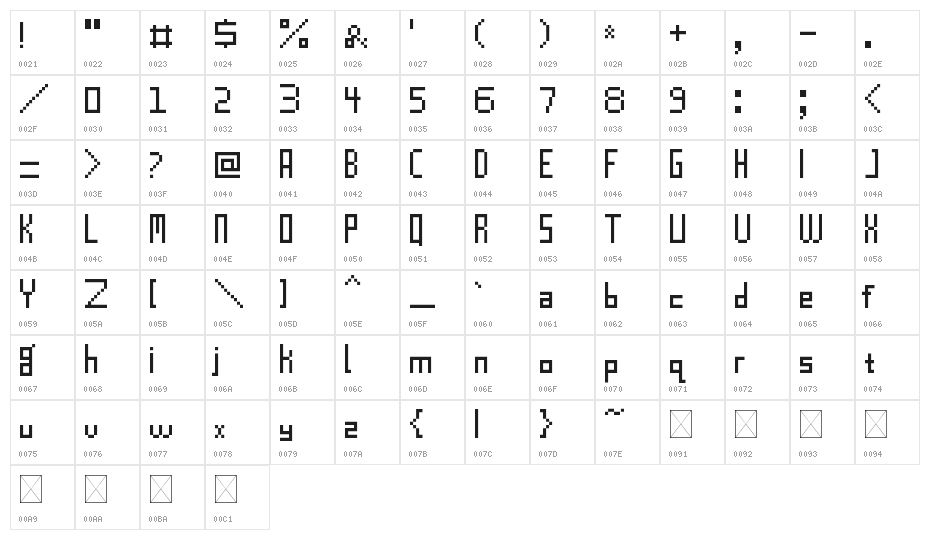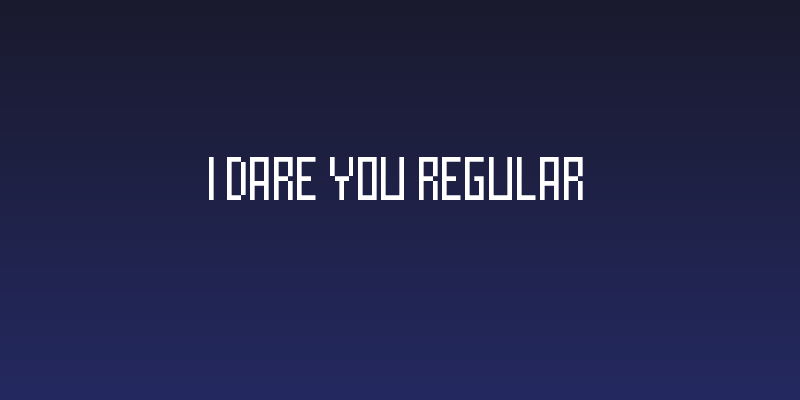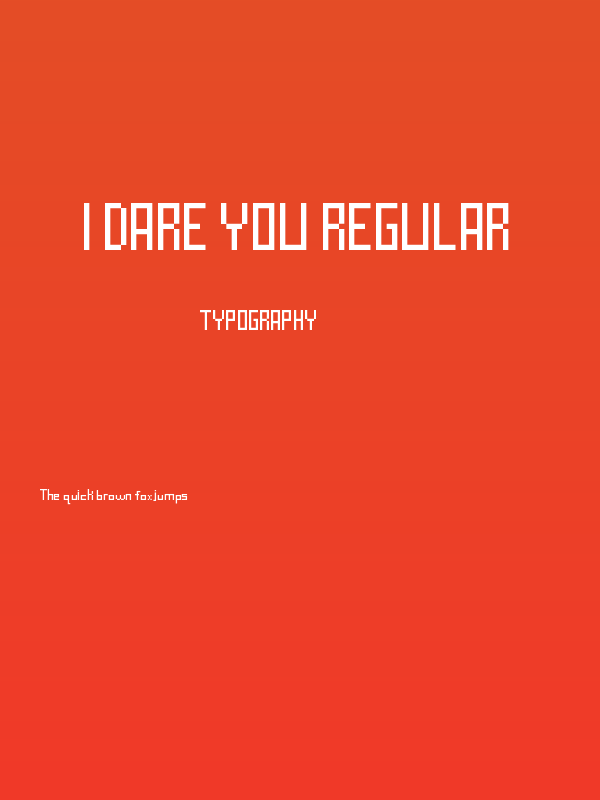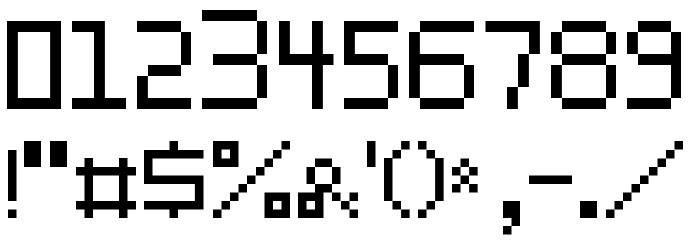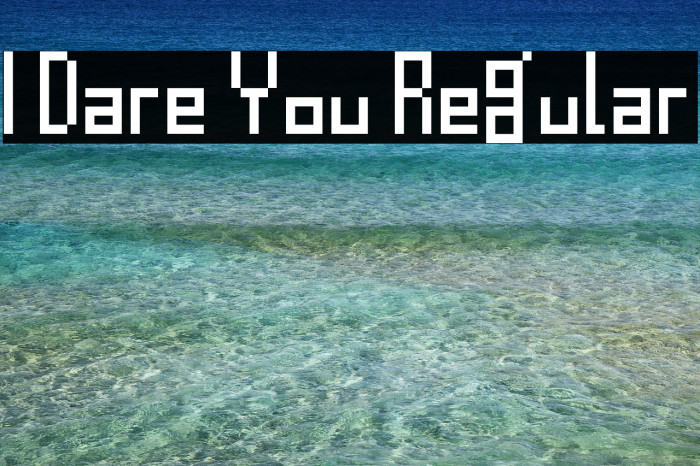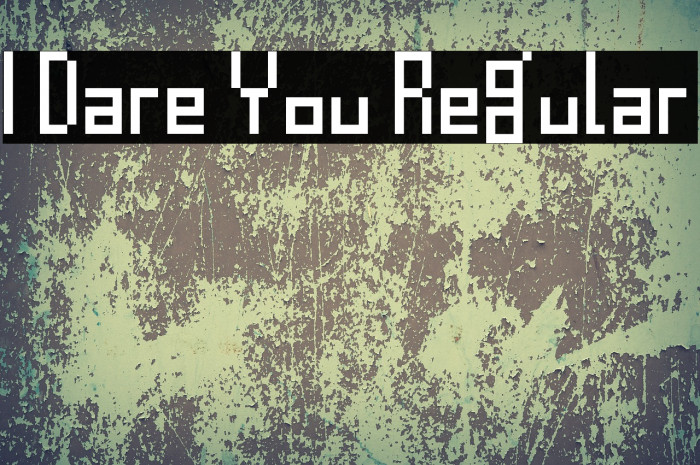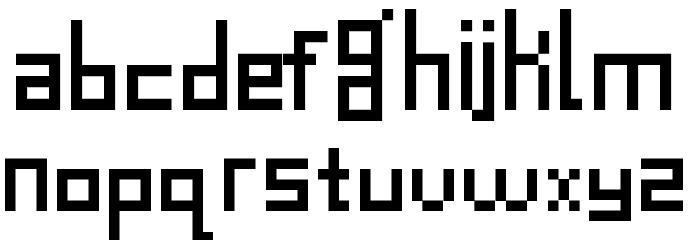
I Dare You Regular Font
I Dare You Regular Description
This font features a bold, geometric design with a pixelated, blocky appearance. Each character is constructed with a uniform stroke width, giving it a consistent and structured look. The uppercase and lowercase letters maintain a similar height, enhancing the font's monospaced feel. Its angular and digital style is reminiscent of early computer graphics, making it ideal for retro-themed projects. The numerals and special characters follow the same design principles, ensuring a cohesive aesthetic across all glyphs. The font's simplicity and clarity make it highly legible, even at smaller sizes.
A nice pixel font free for use.
| Overall Style | Retro, Digital |
| Use Case | Logos, Headlines, Digital displays |
| Proposed Projects | Ideal for retro video game graphics, digital art, tech-themed branding, and any project requiring a nostalgic digital aesthetic. |